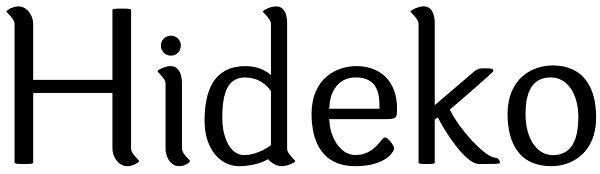
Hideko
Hideko is a visually unique font that has the essence of both serif and san-serif fonts through integrating the body structure of san-serif while retaining the calligraphy from serif. Hideko was inspired by synthesizing Japanese calligraphy and...
Hideko Light
Hideko